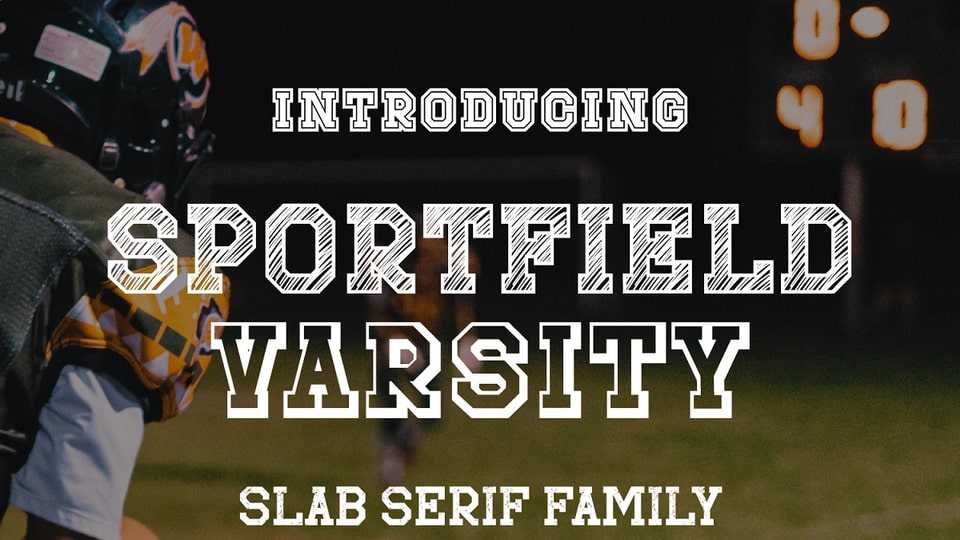
Download Sportfield Varsity font, a sporty typeface perfect for all your athletic and sports-related designs. With its strong and angular letters, Sportfield Varsity font conveys a sense of power and motion.
Designer: Rvandtype Studio